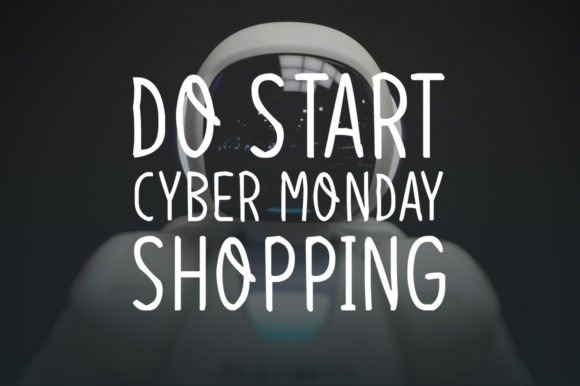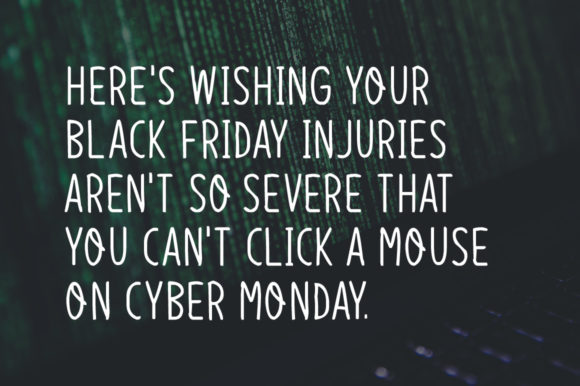
HomeScript FontsCyber Monday Font Script Fonts Cyber Monday Font FacebookXPinterestWhatsApp Cyber Monday Font Poster 2 Cyber Monday Font Poster 3 About Cyber Monday Font Cyber Monday is a light and charming handwritten font with a casual look. Get inspired by its modern style! DOWNLOAD NOW People also explored Master Rounded Font Hello Pink Font Cute Font Romance Script Font Ghost Wedding Font Minimallove Font Milky Font Sharpenhill Font Marhaban Font 270 0 TagsCyber Monday Font Previous articleCheese Donuts FontNext articleBrithaniya Font LEAVE A REPLY Cancel reply Comment: Please enter your comment! Name:* Please enter your name here Email:* You have entered an incorrect email address! Please enter your email address here Website: Save my name, email, and website in this browser for the next time I comment. Personal Use Free Hommy You Personal Use Free Read more about this font Kidly Personal Use Free Read more about this font Wordan Personal Use Free Read more about this font Manbow Personal Use Free Read more about this font BLOG Best Fonts for YouTube Videos: Make Your Thumbnails Stand Out Best Fonts for YouTube Videos: Make Your Thumbnails Stand Out Choosing the right font can make a massive difference in how your YouTube videos perform.... To increase your work productivity, choose the most readable fonts. How to Install and Use Fonts on Windows, macOS, and Web Projects Free Fonts Risk: Why Free Fonts Can Be Dangerous for Designers